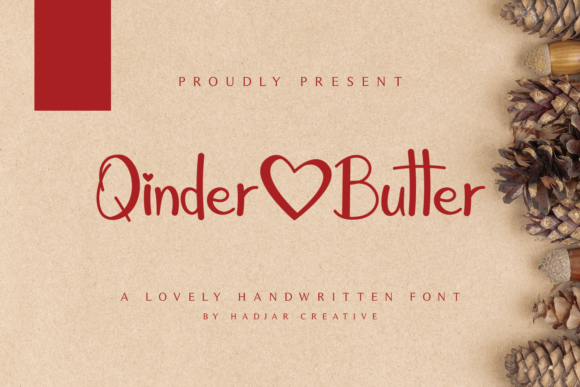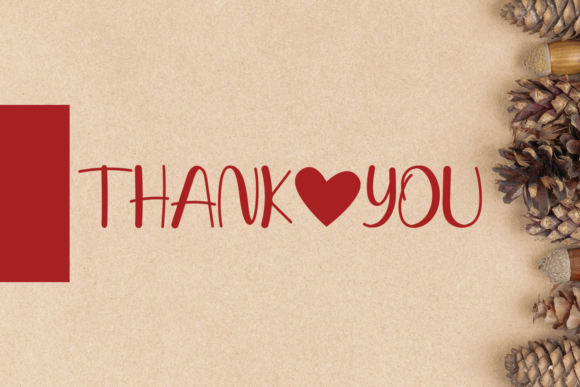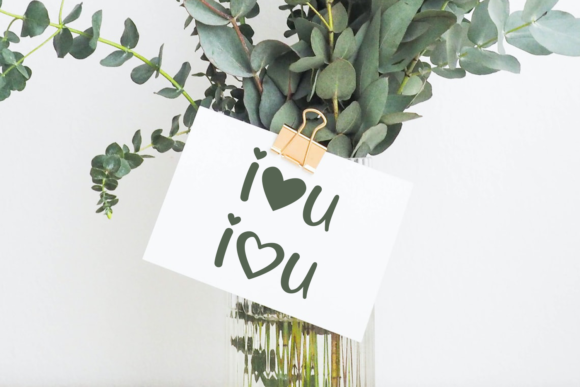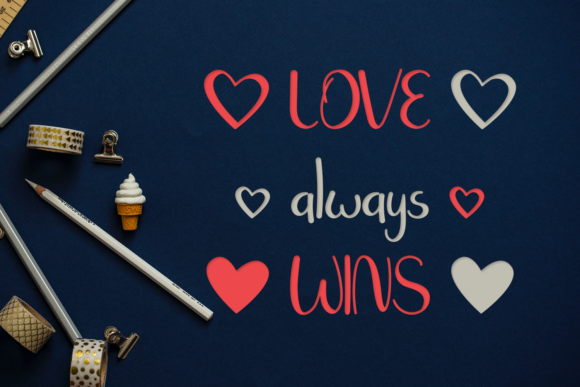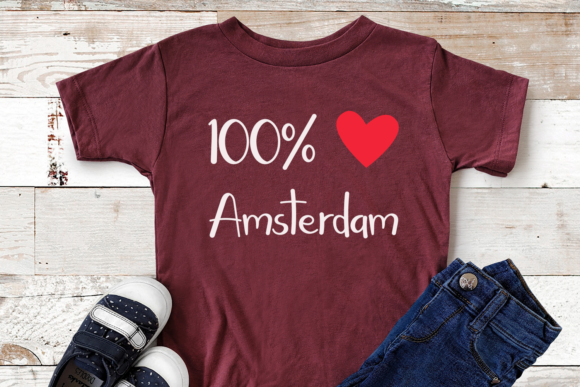
About Qinder Butter Font
Qinder Butter is an adorable and delightful handwritten font, skillfully crafted to win your heart. With a heart character as a special touch, it retains its elegant handwritten essence while embracing a modern and fresh vibe. This versatility makes it a perfect fit for an array of creative projects, from crafty ideas and cut files to quotes, titles, stickers, t-shirts, cards, logos, and more.
Cute and Lovely: Qinder Butter’s cute and lovely nature is evident in every stroke of the letters, making it an irresistible choice for projects that need a touch of sweetness and charm.
Handcrafted with Care: The font’s handcrafted design showcases the attention to detail and effort put into creating a beautiful and authentic typeface that exudes warmth and personality.
Heart Character: The inclusion of a heart character adds a romantic and endearing element to the font, making it an ideal choice for love-themed designs, wedding invitations, and romantic quotes.
Contemporary and Fresh: While Qinder Butter maintains its classy handwritten appeal, it effortlessly blends modern influences, making it relevant and appealing to current design trends.
Wide Range of Applications: Its versatility allows Qinder Butter to be used in a multitude of projects. Whether you’re creating craft files, social media graphics, or merchandise like stickers and t-shirts, this font will elevate your creations.
Crafty Ideas: Qinder Butter’s playful and inviting style suits crafty projects perfectly, whether you’re making DIY cards, scrapbooking, or creating art prints.
Cut Files: For cutting machines like Cricut or Silhouette, Qinder Butter is an ideal choice for creating intricate and beautiful designs.
Quotes and Titles: Add a touch of sweetness to your quotes and titles with Qinder Butter, making your messages more engaging and heartwarming.
Stickers: Design charming stickers that will bring joy to anyone who receives them, thanks to Qinder Butter’s endearing appeal.
T-shirts and Cards: Create unique and eye-catching designs for t-shirts and cards, infusing them with a personal and heartfelt touch.
Logos: Use Qinder Butter to craft logos that are not only visually appealing but also capture the essence of your brand, especially if you’re in the creative or handmade industry.
In conclusion, Qinder Butter is a cute and lovely handwritten font that strikes a perfect balance between classic elegance and contemporary charm. With its heart character and versatile nature, it’s well-suited for a wide range of projects, from crafty ideas and cut files to quotes, titles, stickers, t-shirts, cards, logos, and beyond. This font is designed to bring joy and warmth to your designs, making it an ideal choice for creating heartwarming and endearing pieces of art.